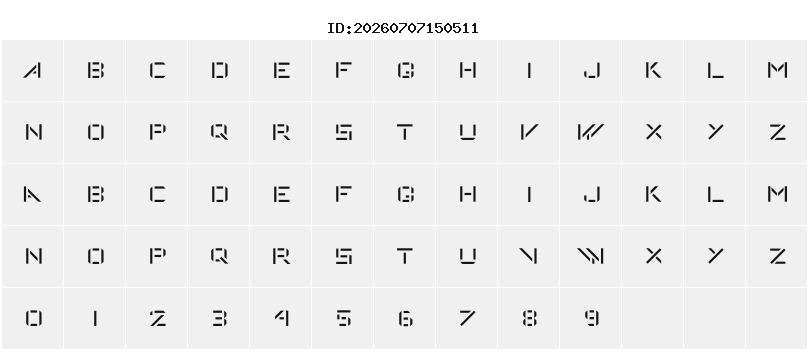
• Font Name: DeStijl Stencil
About DeStijl Stencil.otf
DeStijl Stencil.otf is a modern, elegant sans-serif font designed for ultimate readability and visual harmony. Perfect for branding, headlines, web design, and print materials.